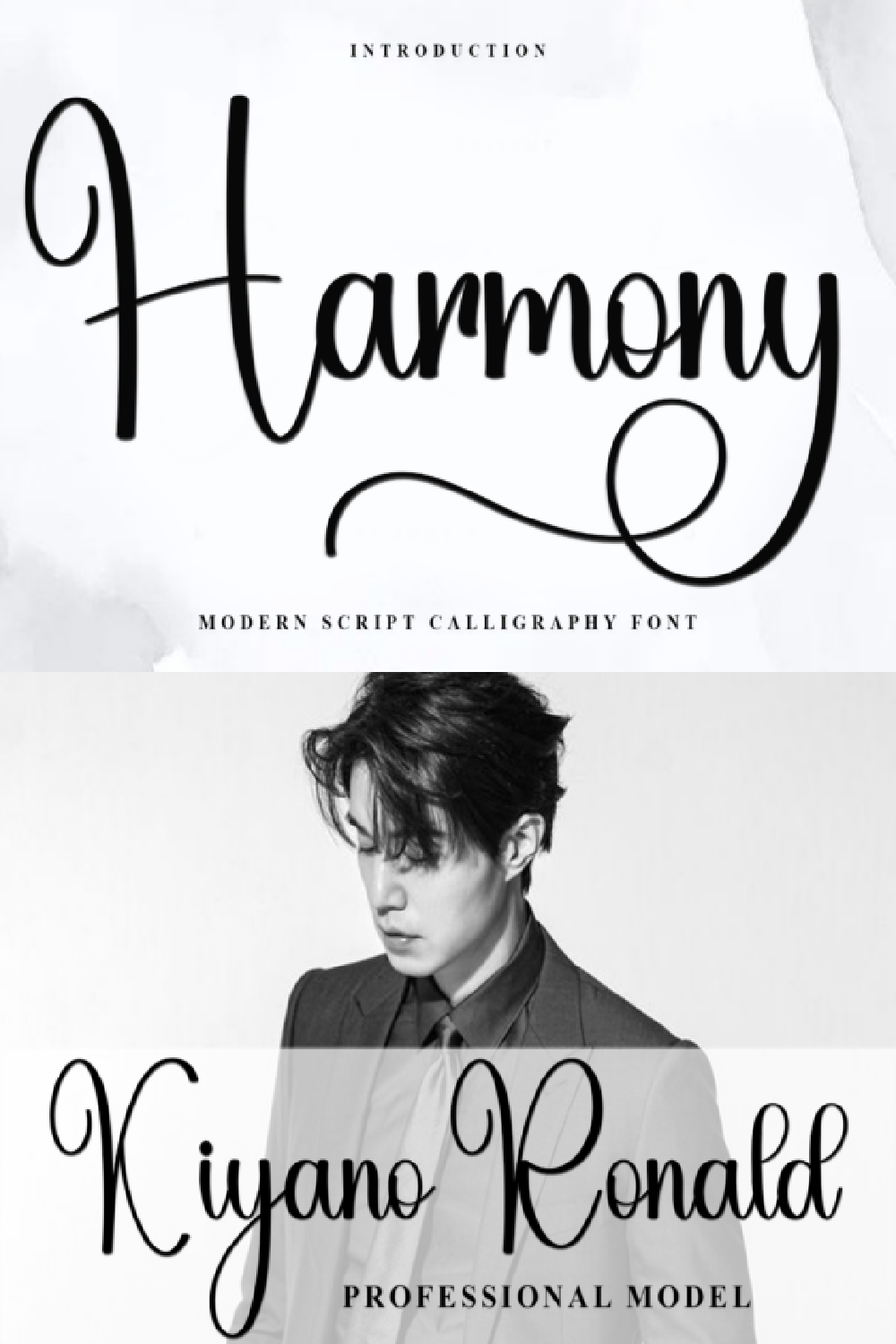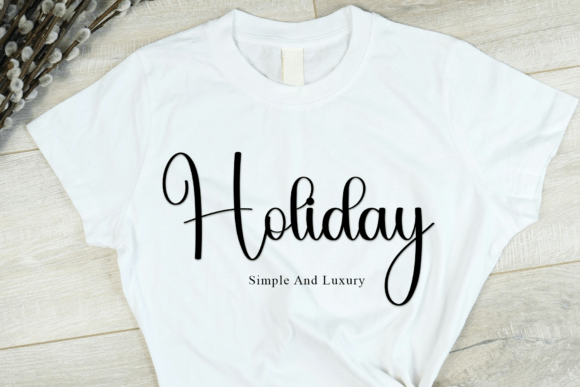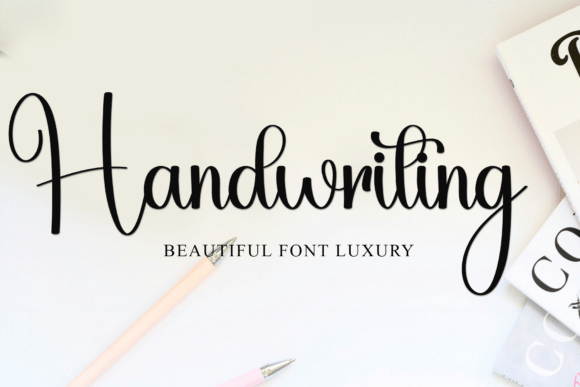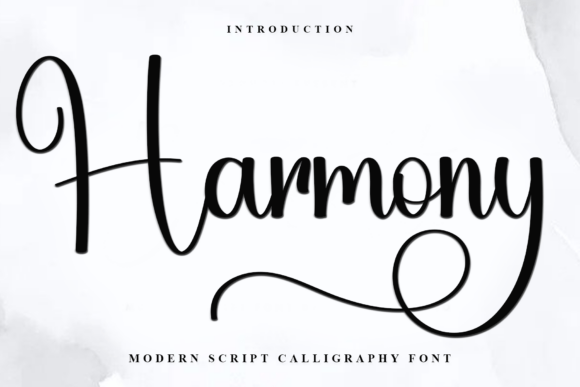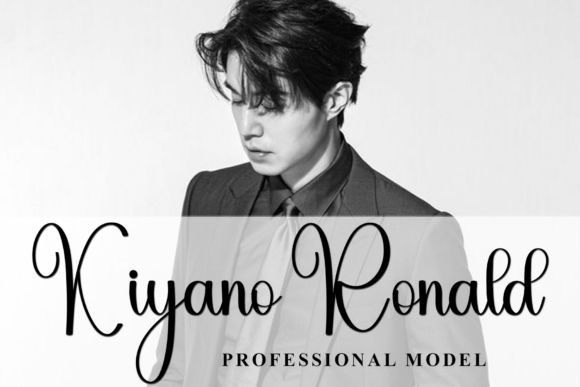
Harmony Font: A Cute Monogram Font for Cricut & DIY Projects
About the Harmony Font
Explore the possibilities with Harmony Font, a font that offers both beauty and functionality. Harmony is a beautiful and eye-catching font designed with a soft, unique touch. Its distinctive strokes give it a special character, making it meaningful and versatile for future use. With various characters, it’s perfect for design projects, crafts, and other creative works.